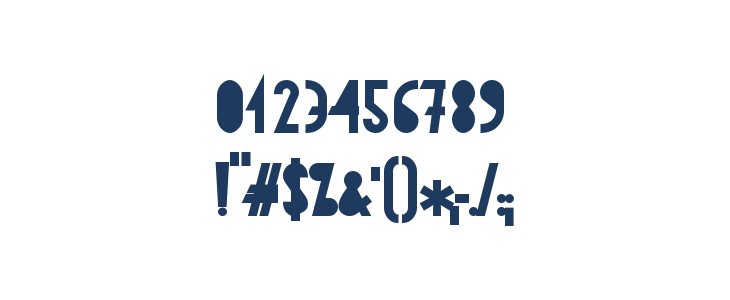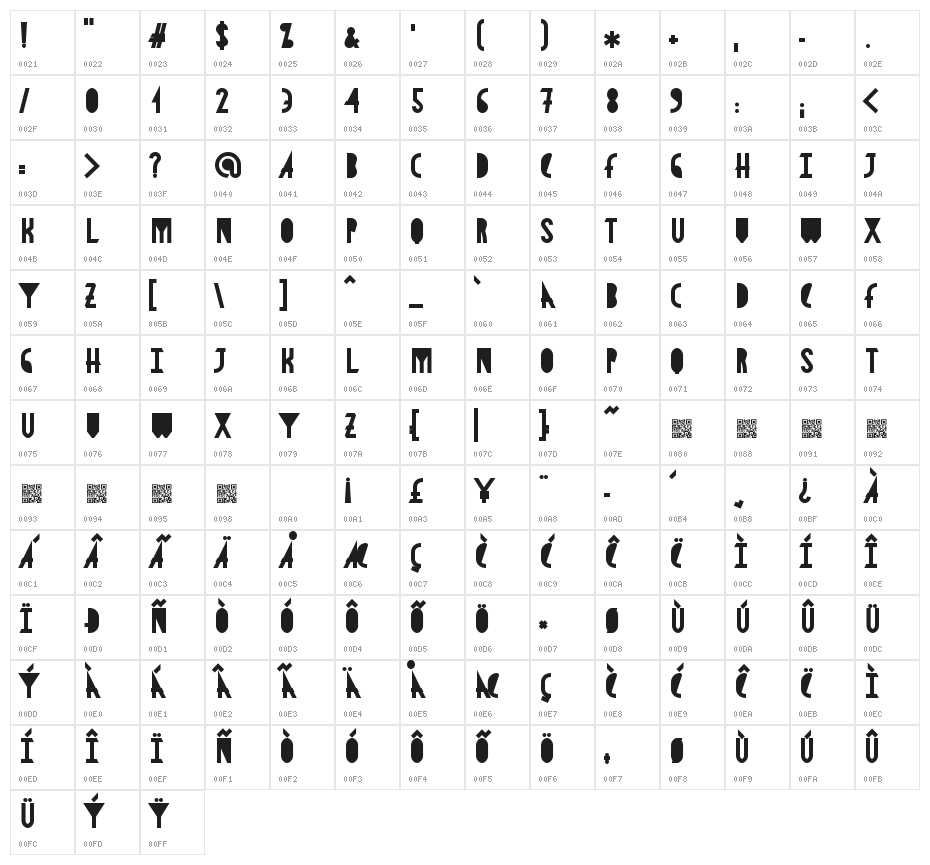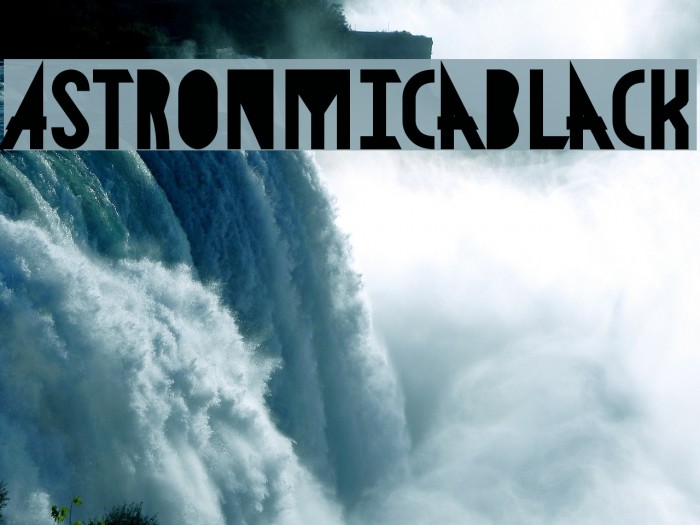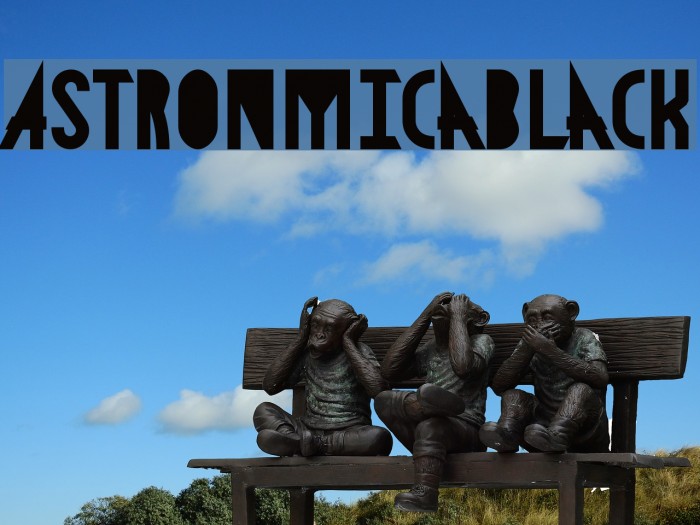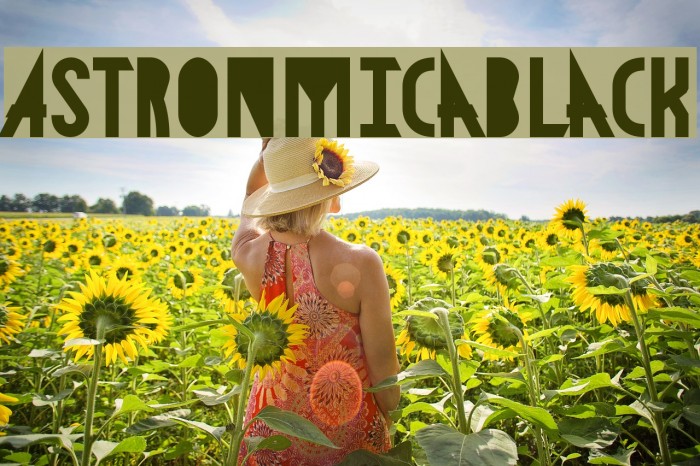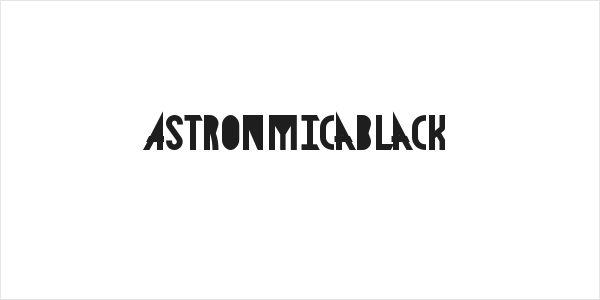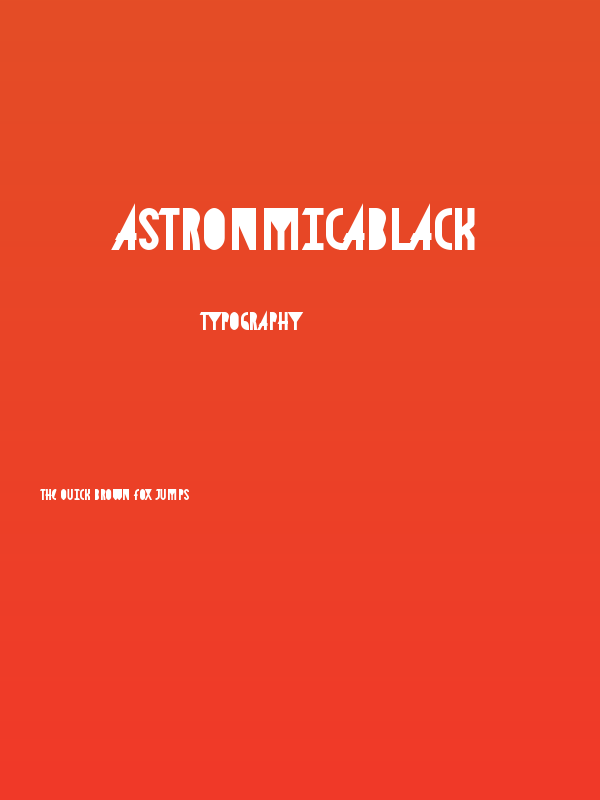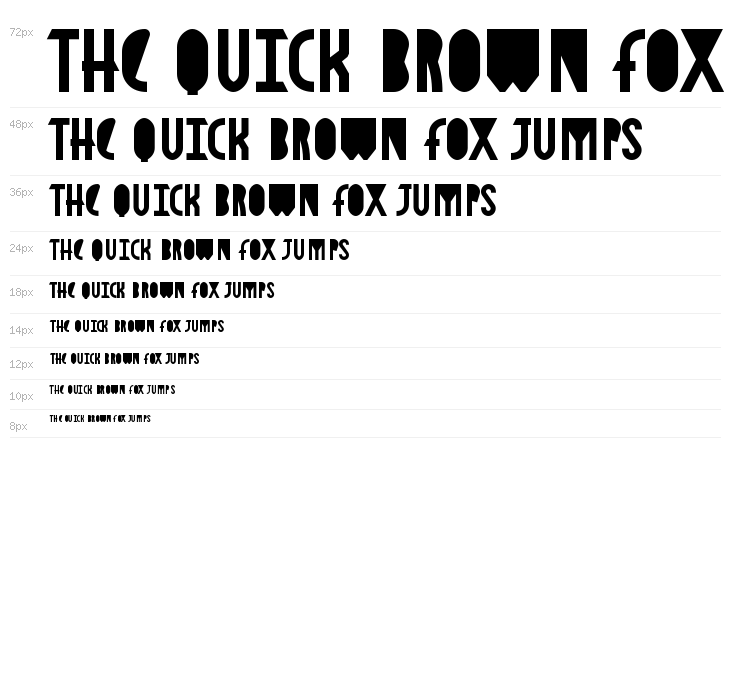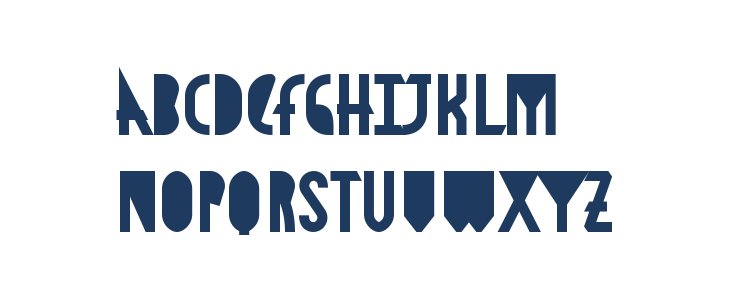
AstronmicaBlack Font
AstronmicaBlack Description
This font features a bold and geometric design, characterized by sharp angles and thick strokes. The uppercase letters are particularly striking, with a futuristic and industrial feel. The lowercase letters maintain the same boldness, ensuring consistency throughout. Numbers and special characters are equally bold, making them stand out. The overall appearance is modern and eye-catching, suitable for projects that require a strong visual impact.
| Proposed Projects | Ideal for branding, posters, headlines, and any design that requires a bold statement. |